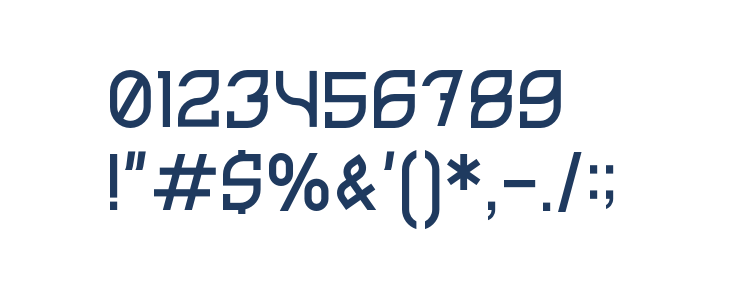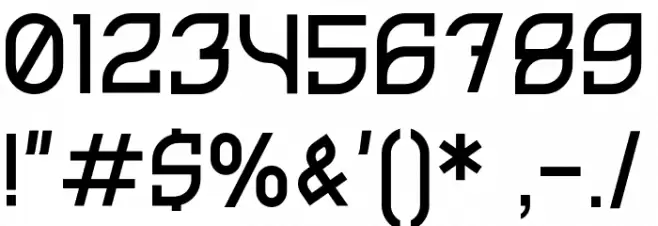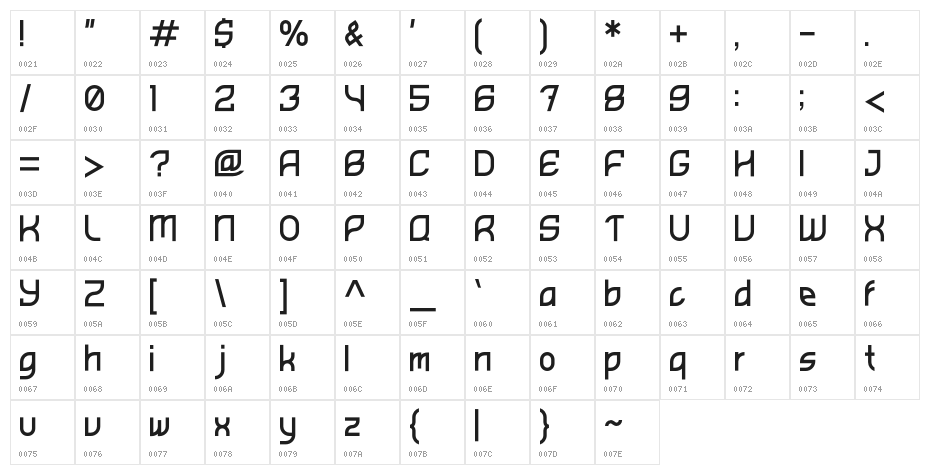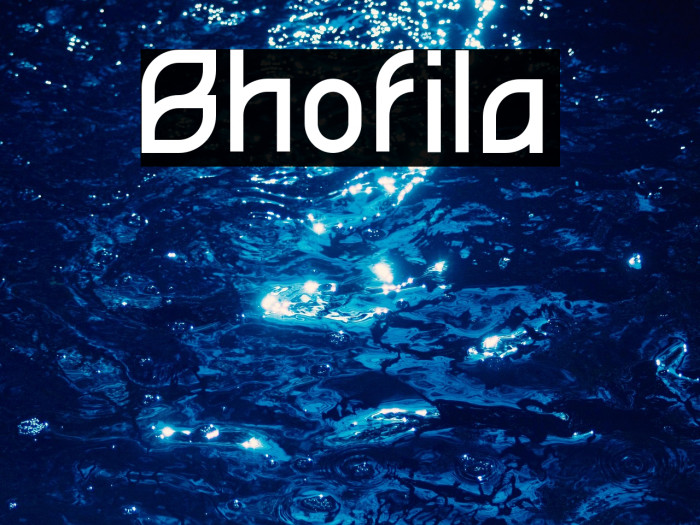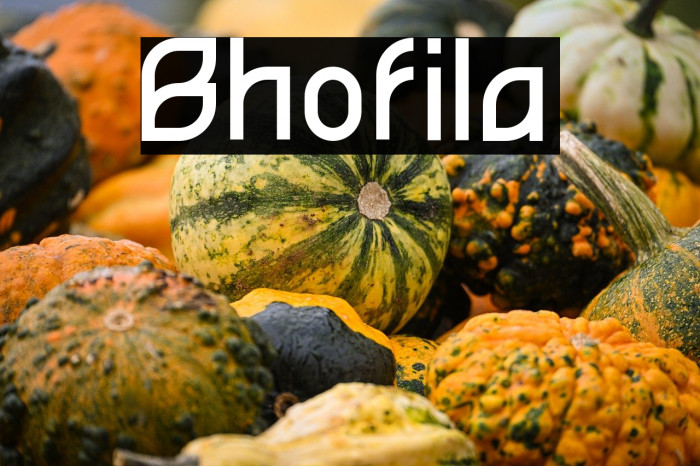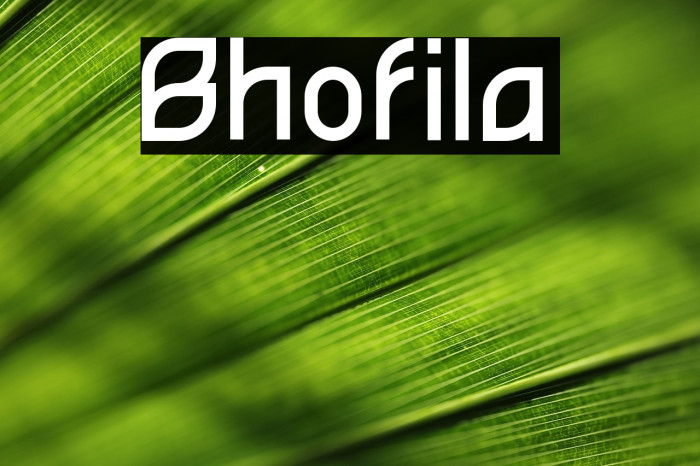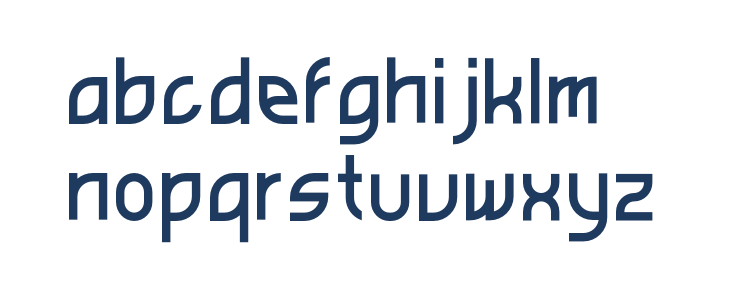
Bhofila Font
Bhofila Description
This font features a modern, geometric design with a unique blend of rounded and angular elements. The uppercase letters are bold and structured, with a futuristic feel, while the lowercase letters maintain a consistent style that complements the uppercase. The numerals are distinct and easy to read, with a similar geometric style. Special characters are well-integrated, maintaining the overall aesthetic. The font's clean lines and balanced proportions make it versatile for various design applications.
| Proposed Projects | Ideal for technology branding, modern advertising, futuristic posters, and digital interfaces. |